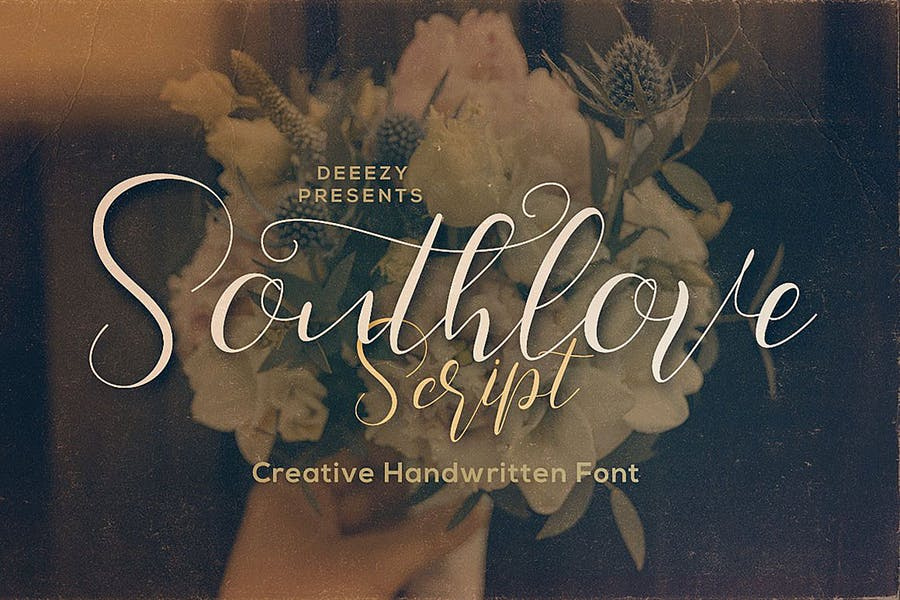
Southlove Script Font
Southlove Script Font is perfect for romantic wedding invitations, Southern charm branding, boutique hospitality signage, vintage-inspired packaging, heartfelt greeting cards, rustic restaurant menus, romantic retreat materials, antebellum-style event stationery, charming bed & breakfast identity, sweet tea brand design, romantic novel covers, and authentic Southern storytelling projects.
Southlove Script Font is exciting because it captures the warm hospitality and gracious elegance of Southern charm with flowing script letterforms that evoke front porch conversations, sweet tea afternoons, and the timeless romance of magnolia-scented evenings, creating authentic connections that celebrate love, tradition, and gracious living.
The Southlove Script Font family includes charming variations: Regular, Bold, Light, Swash capitals, Decorative flourishes, and Ornamental hearts, offering designers a complete Southern elegance typography system to create heartfelt compositions that honor tradition while celebrating enduring love and hospitality.
The font's lovingly crafted letterforms showcase the fluid beauty of traditional Southern penmanship while incorporating timeless design principles that ensure optimal performance across romantic and hospitality applications. Each character flows with natural grace and warmth, creating compositions that feel like handwritten love letters from the heart.
Southlove Script Font excels in creating memorable brand experiences for businesses celebrating romance, tradition, and Southern hospitality. Its gracious presence transforms ordinary communications into heartfelt expressions that resonate with audiences seeking authentic charm, genuine warmth, and the comfort of timeless traditions.
Creative professionals treasure how Southlove Script Font brings instant warmth and authenticity to design projects without appearing overly nostalgic or clichéd. The font's balanced character and thoughtful design ensure it performs beautifully in both intimate personal applications and larger commercial settings, maintaining its charming appeal.
This remarkable typeface shines in applications where emotional connection and authentic hospitality are essential. From Southern wedding venues to boutique inns, Southlove Script Font creates lasting impressions that communicate love, tradition, and the genuine warmth that defines true Southern hospitality and gracious living.